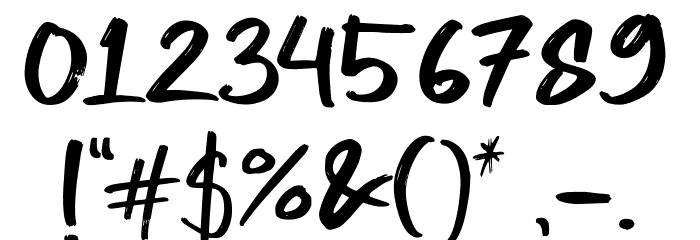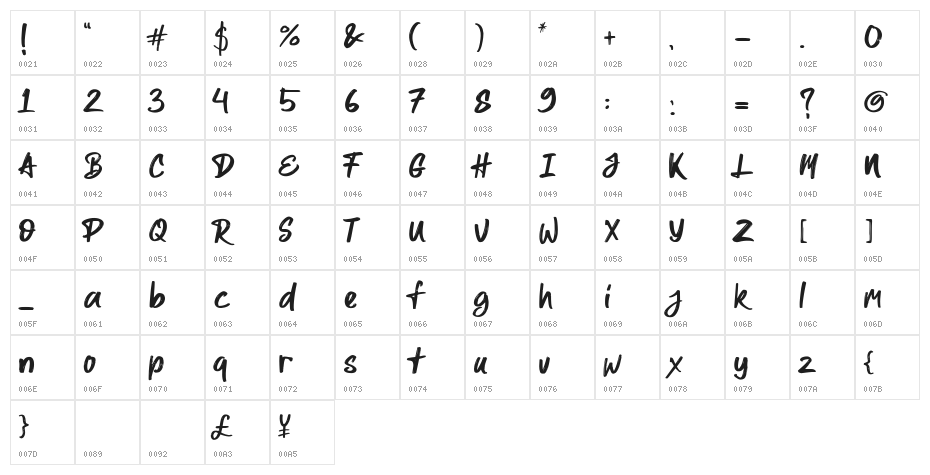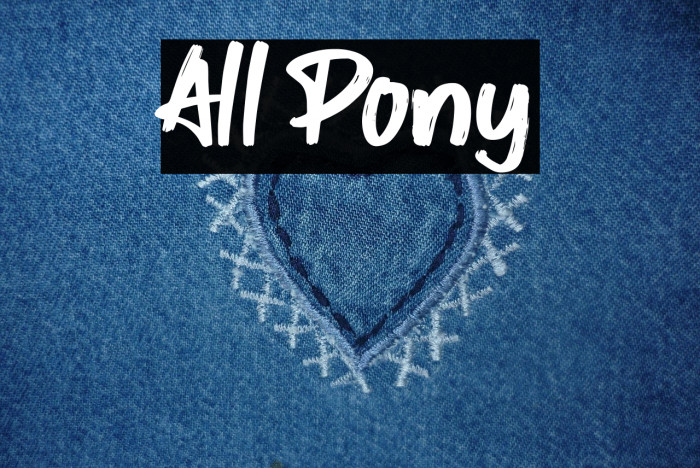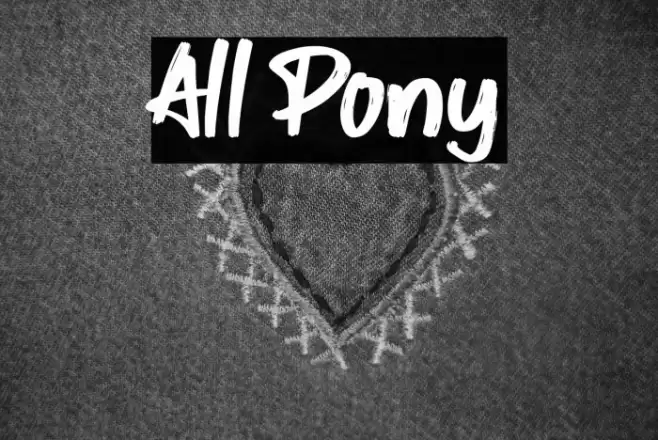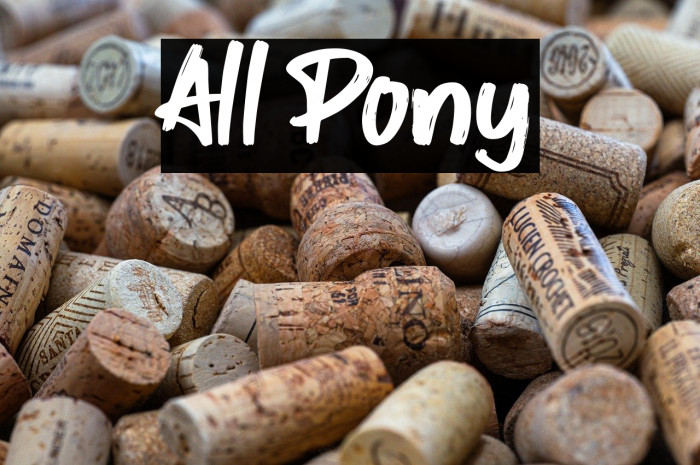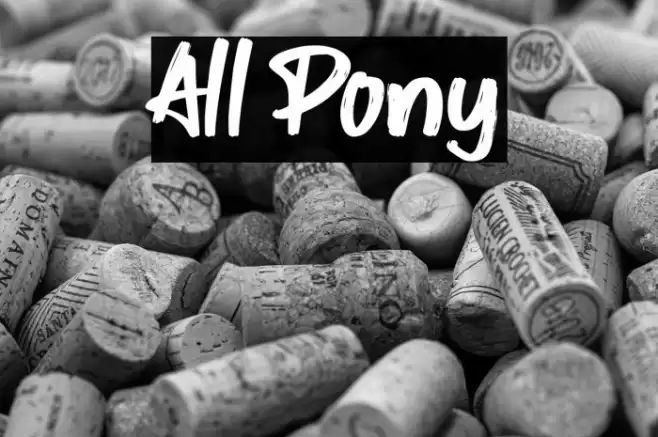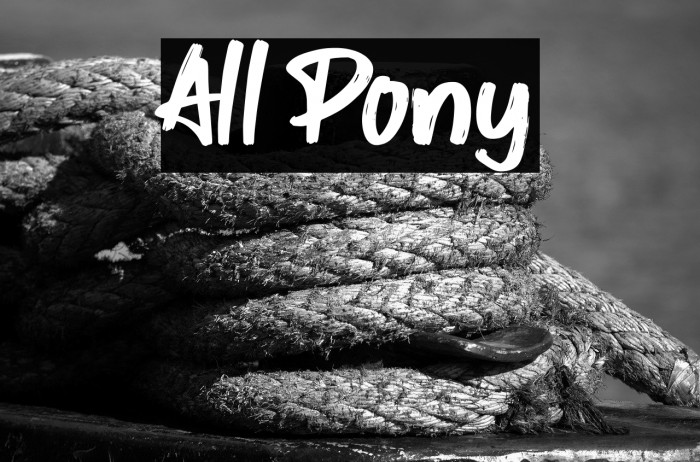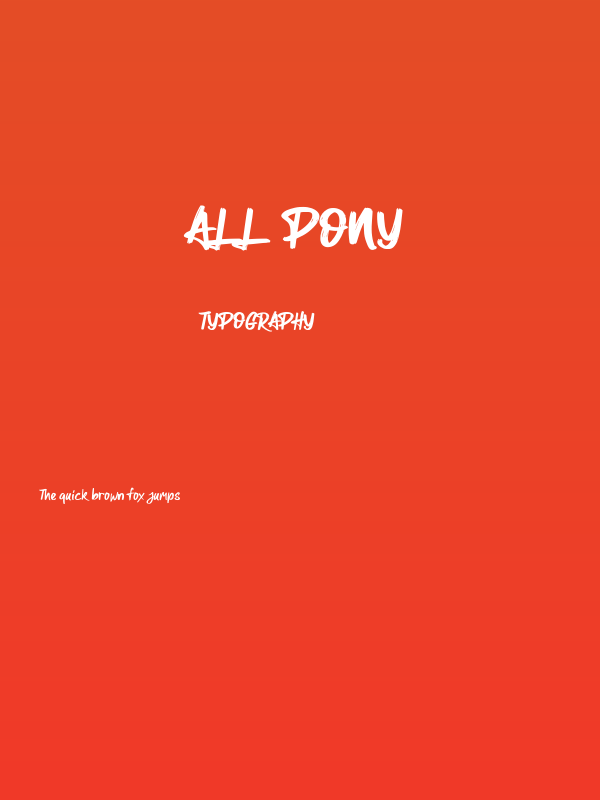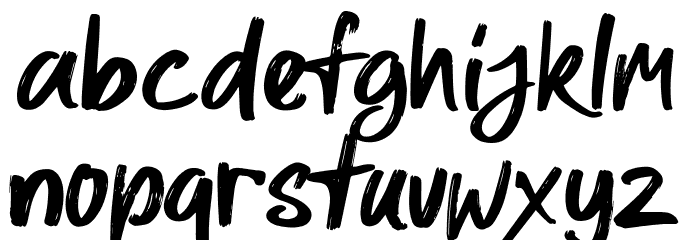
All Pony Font
All Pony Description
This font exudes a bold and energetic style, characterized by its brush-like strokes and dynamic flow. The uppercase and lowercase letters maintain a consistent, lively rhythm, with each character exhibiting a hand-drawn quality. The numbers and special characters follow suit, adding to the overall cohesive appearance. The font's expressive nature makes it ideal for projects that require a personal touch or a sense of movement and creativity. Its unique style is both modern and artistic, making it a versatile choice for various design needs.
| Proposed Projects | Ideal for posters, branding, social media graphics, and creative projects that require a personal touch. |